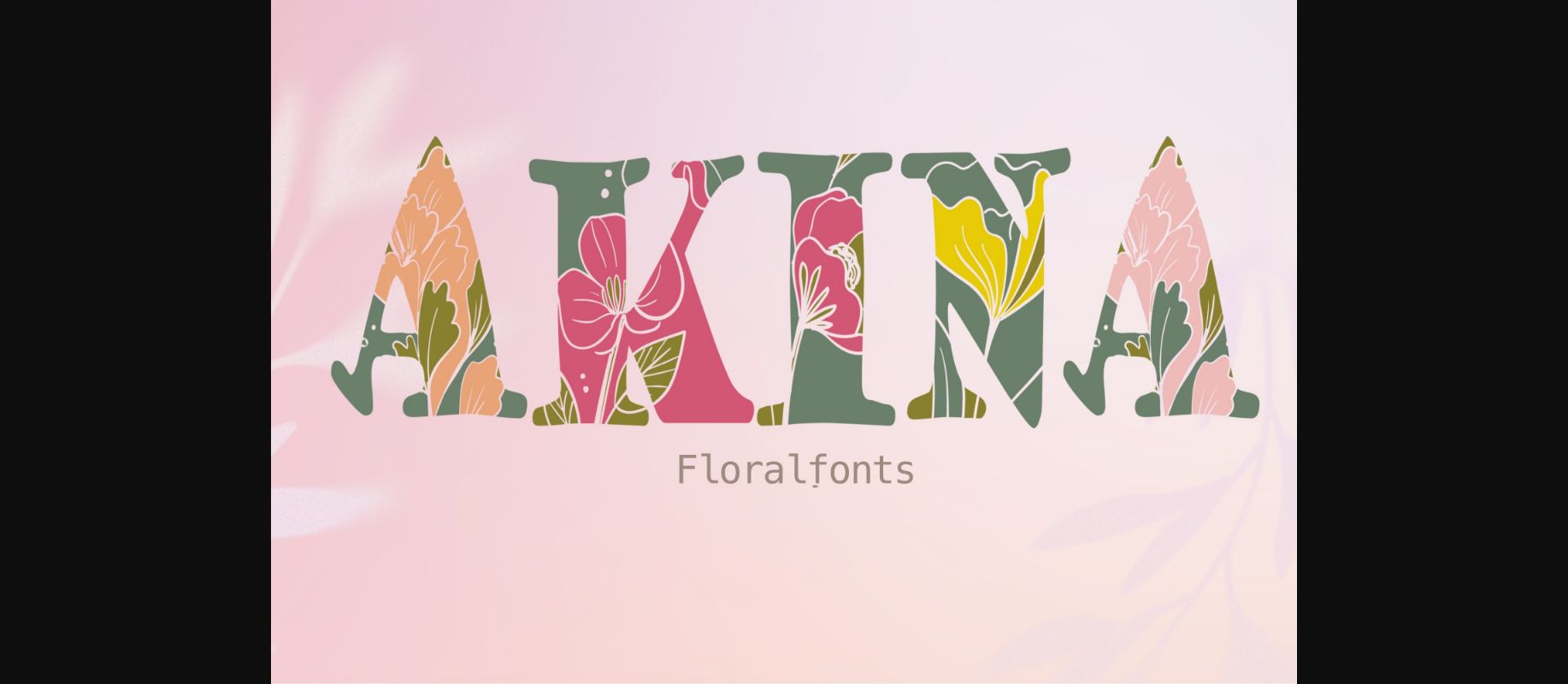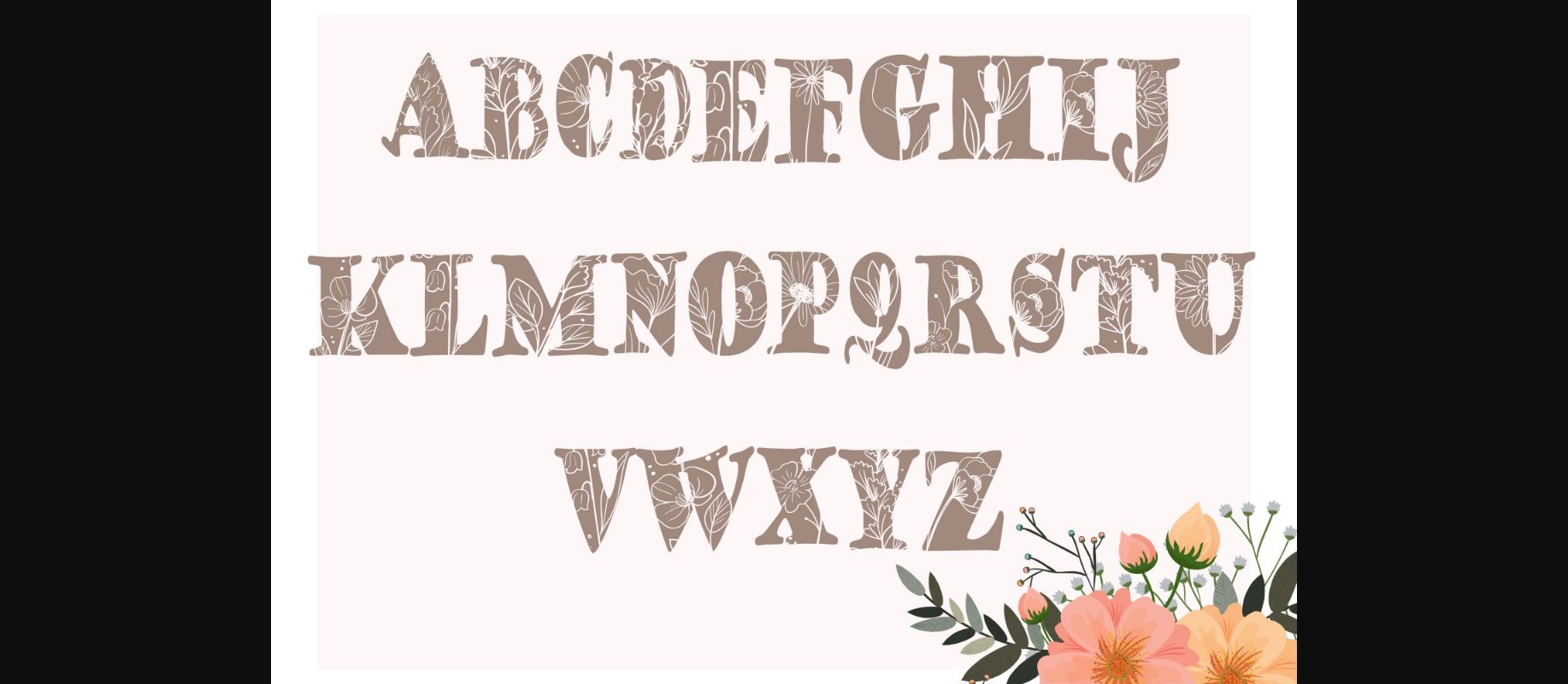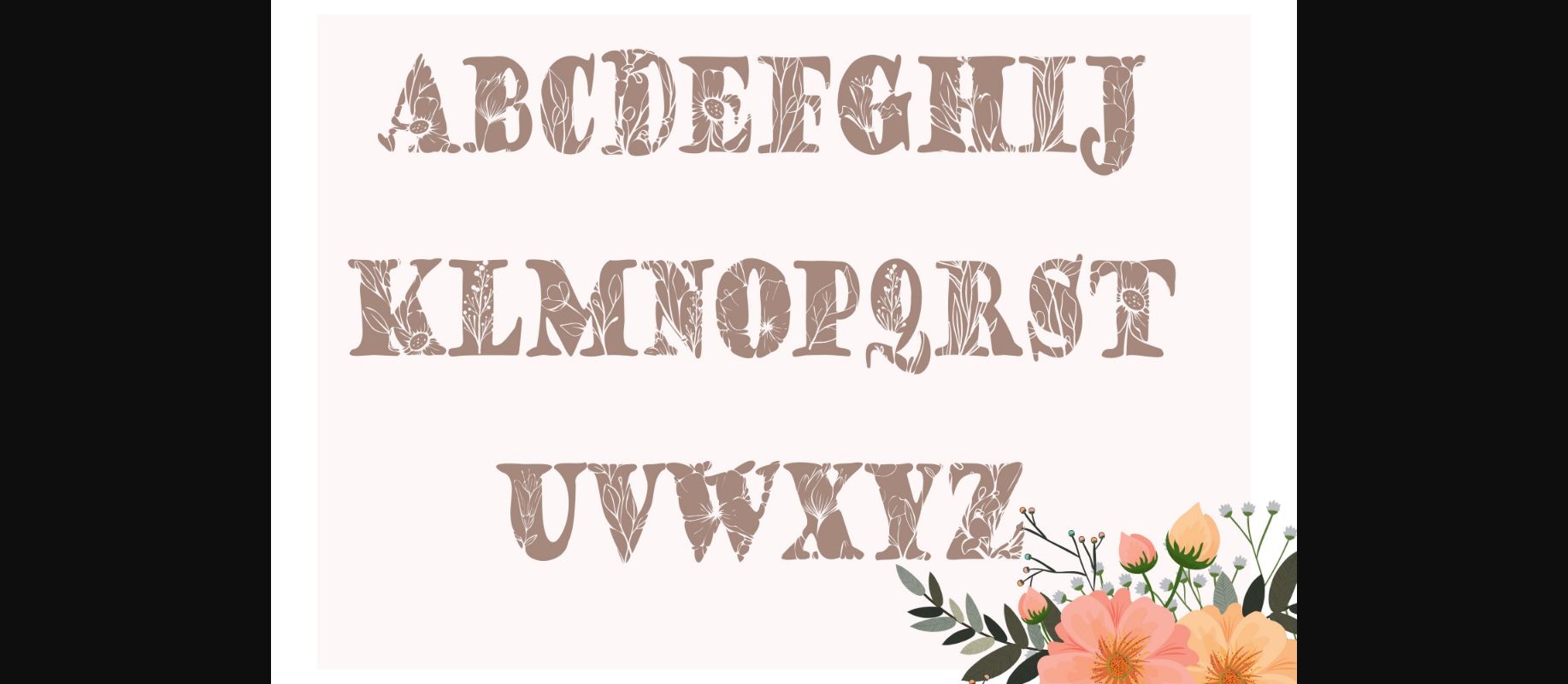
Akina is a feminine, charming, and ornamental font. Floral uppercase letters are perfect for monograms and logos for weddings. Wedding invitations, branding, packaging, publications, florist shops, social media, restaurant menus, greeting cards, headings, and more may all benefit from this typeface.